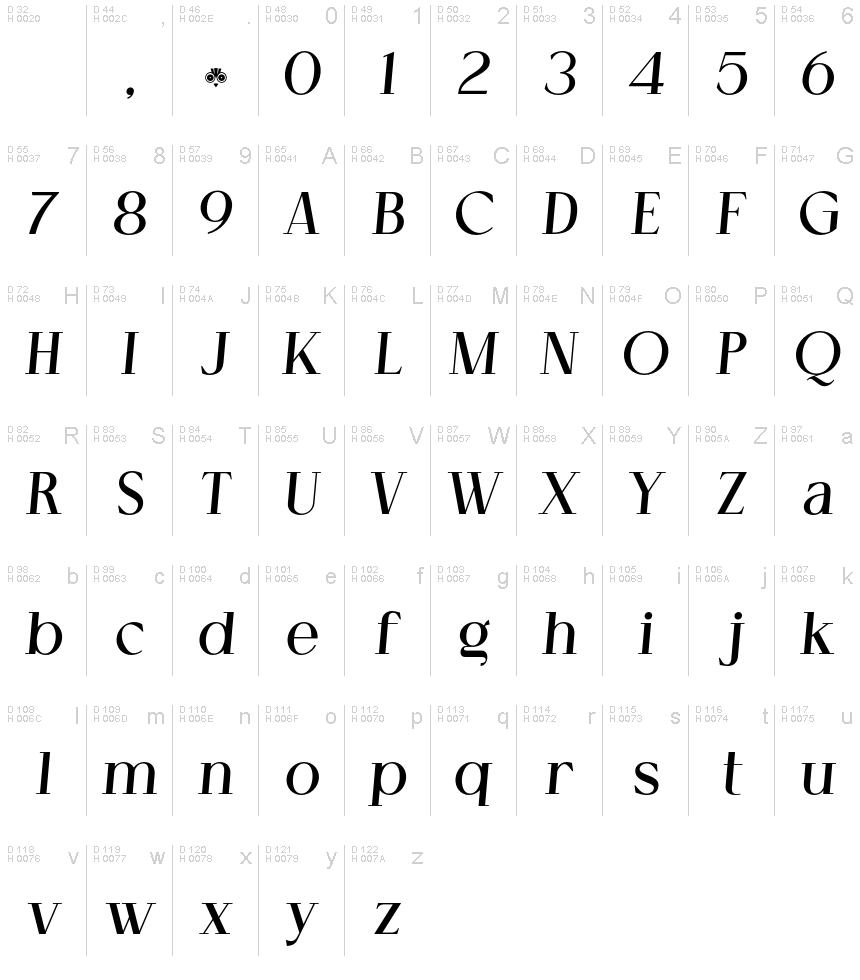
Cellofy SemiBold Italic font, part of the Cellofy family by Owlking Project, is a striking serif typeface offering elegance and sophistication. Its semi-bold weight and italic style bring a sense of dynamism and refinement to any design.
This free font is perfect for personal use in creating eye-catching headlines, stylish posters, or sophisticated branding materials. With its distinctive flair, Cellofy SemiBold Italic enhances readability while adding a touch of class.